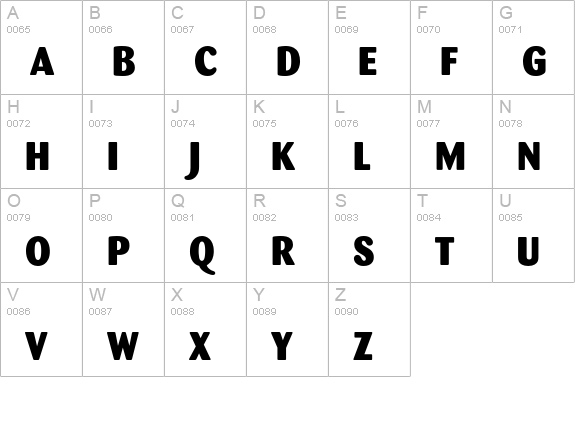
Barmeno BQ Extra Bold is a strong, high-contrast variant in the Barmeno typeface family \xE2\x80\x94 well suited to headlines, attention-grabbing titles, and strong calls-to-action.
Barmeno BQ Extra Bold is a striking and powerful font that commands attention with its bold and assertive appearance. Its clean lines and strong presence make it perfect for headlines, posters, and other display purposes where you want your text to stand out. The extra bold weight adds an extra level of impact, making sure your message is heard loud and clear. But the best part? Barmeno BQ Extra Bold is available for free download at FontsMarket.com. That's right, you can get your hands on this impressive font without spending a dime. So why wait? Elevate your designs with Barmeno BQ Extra Bold and make a bold statement today.